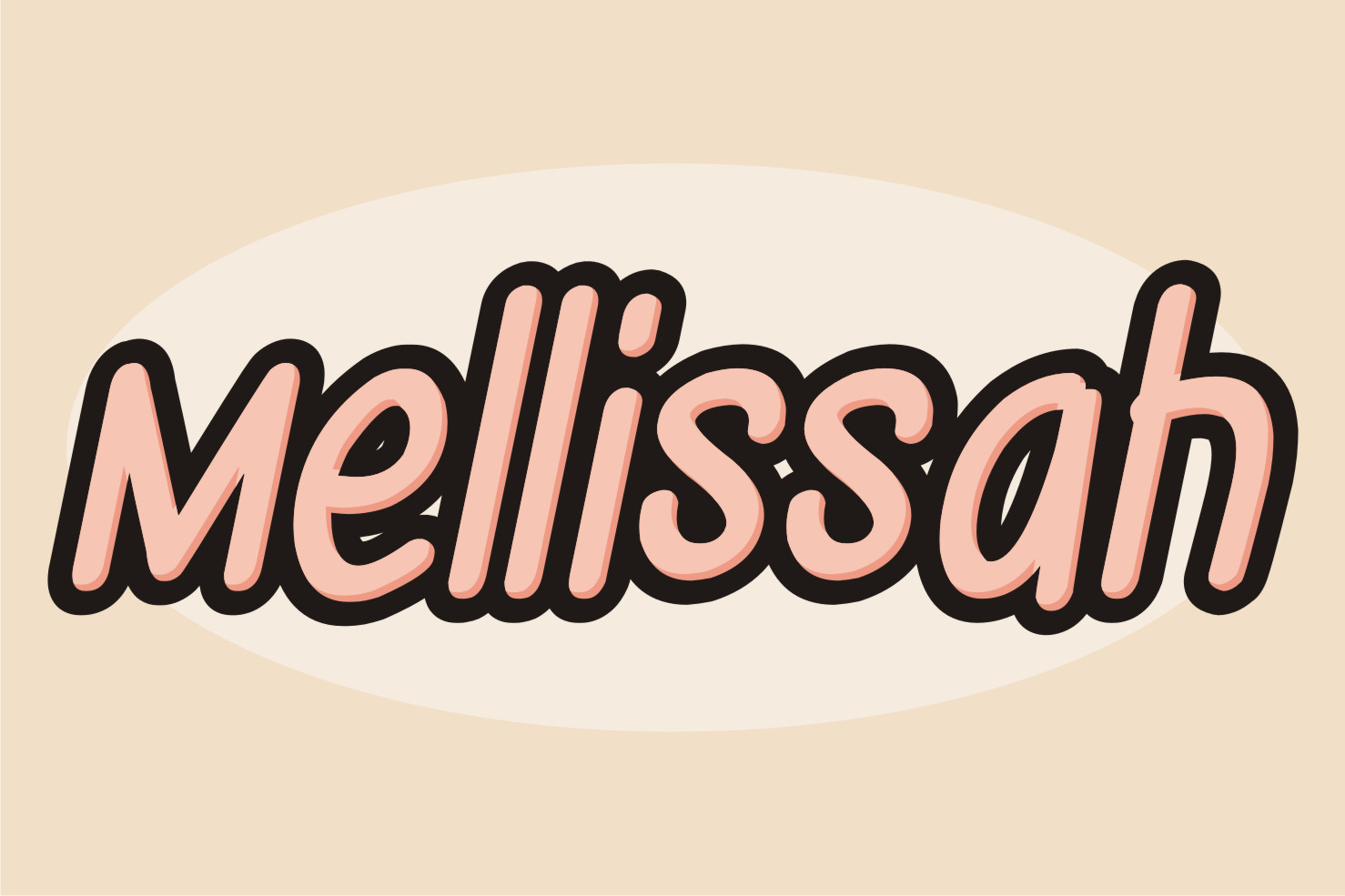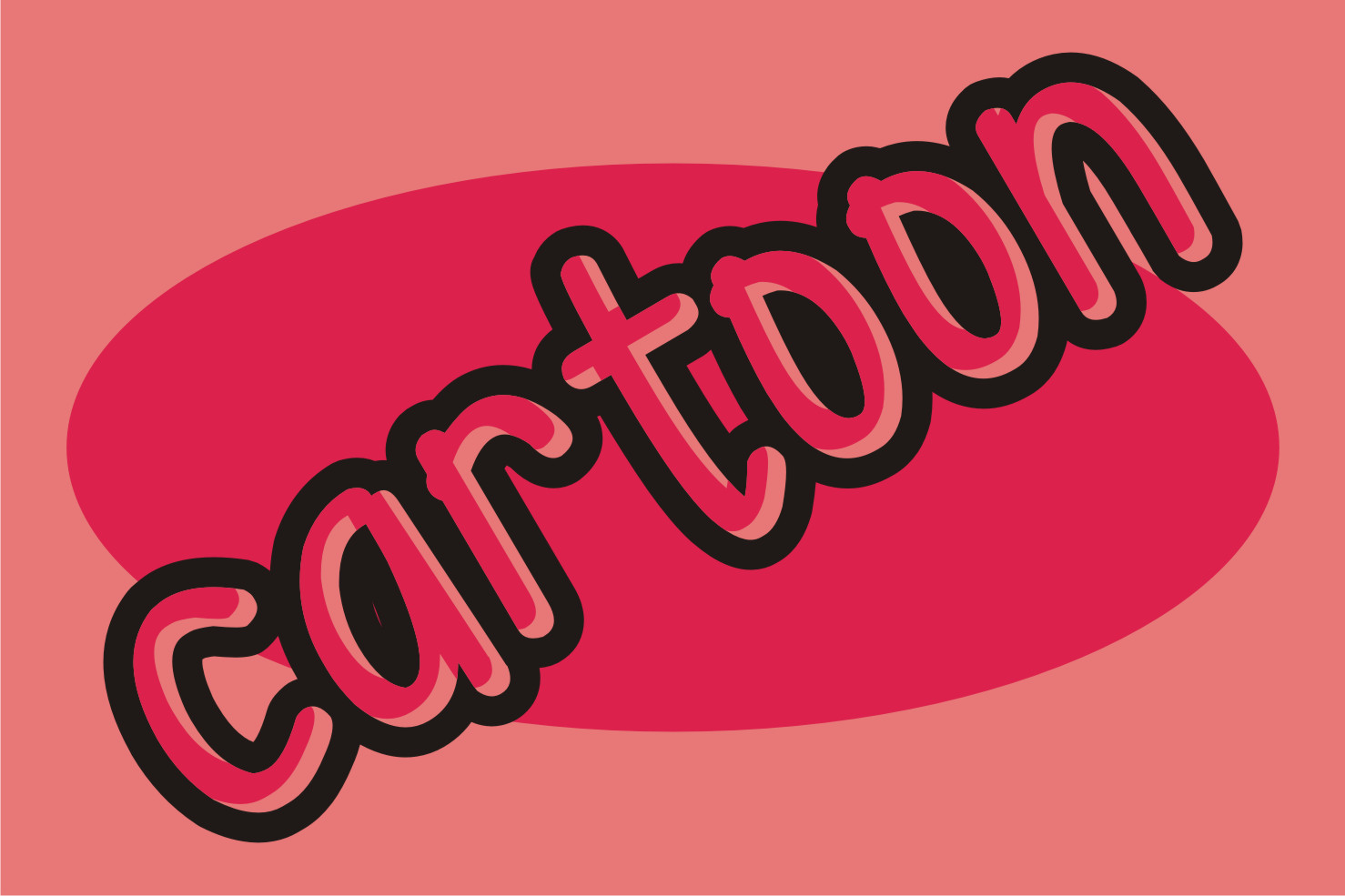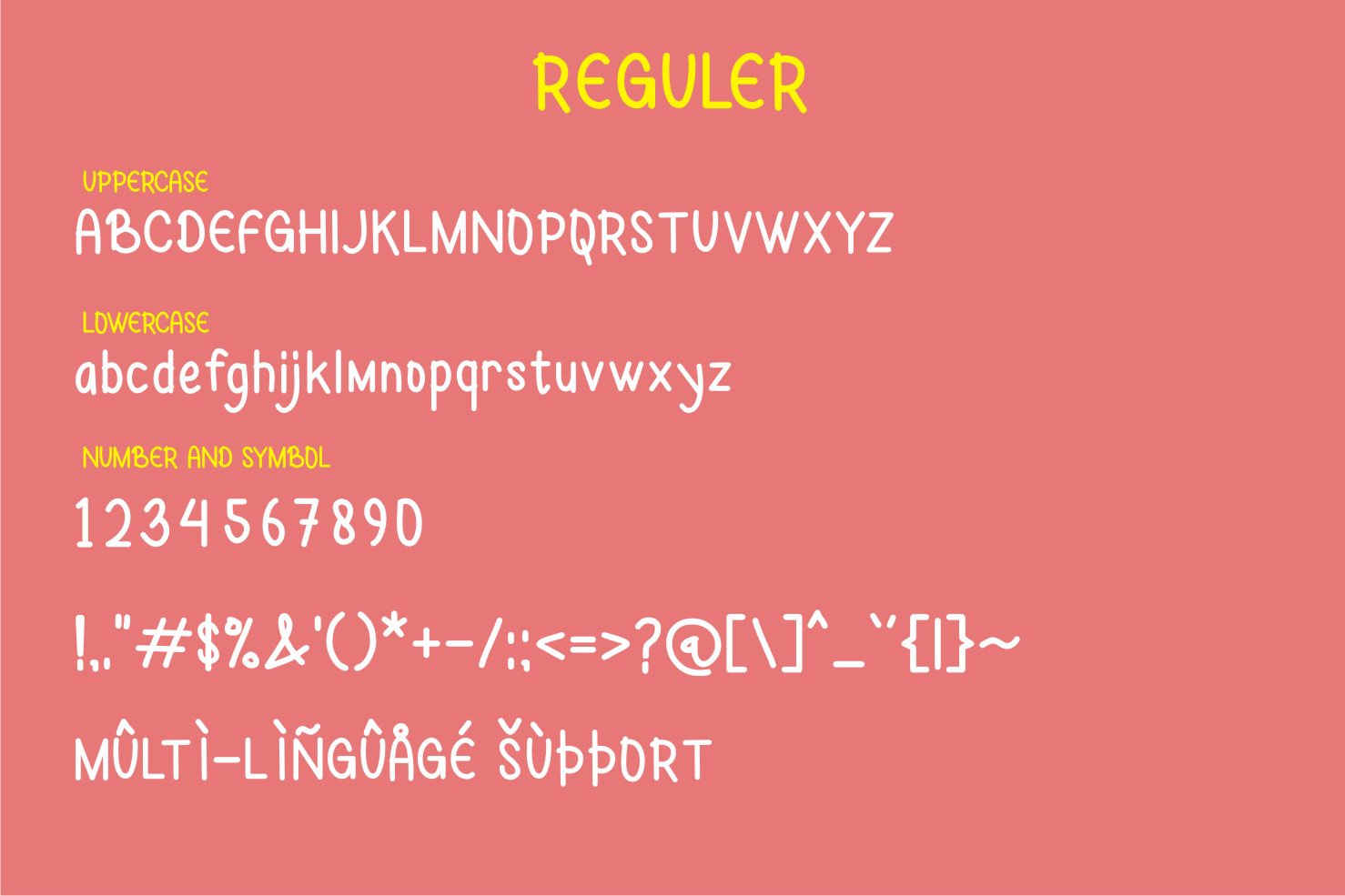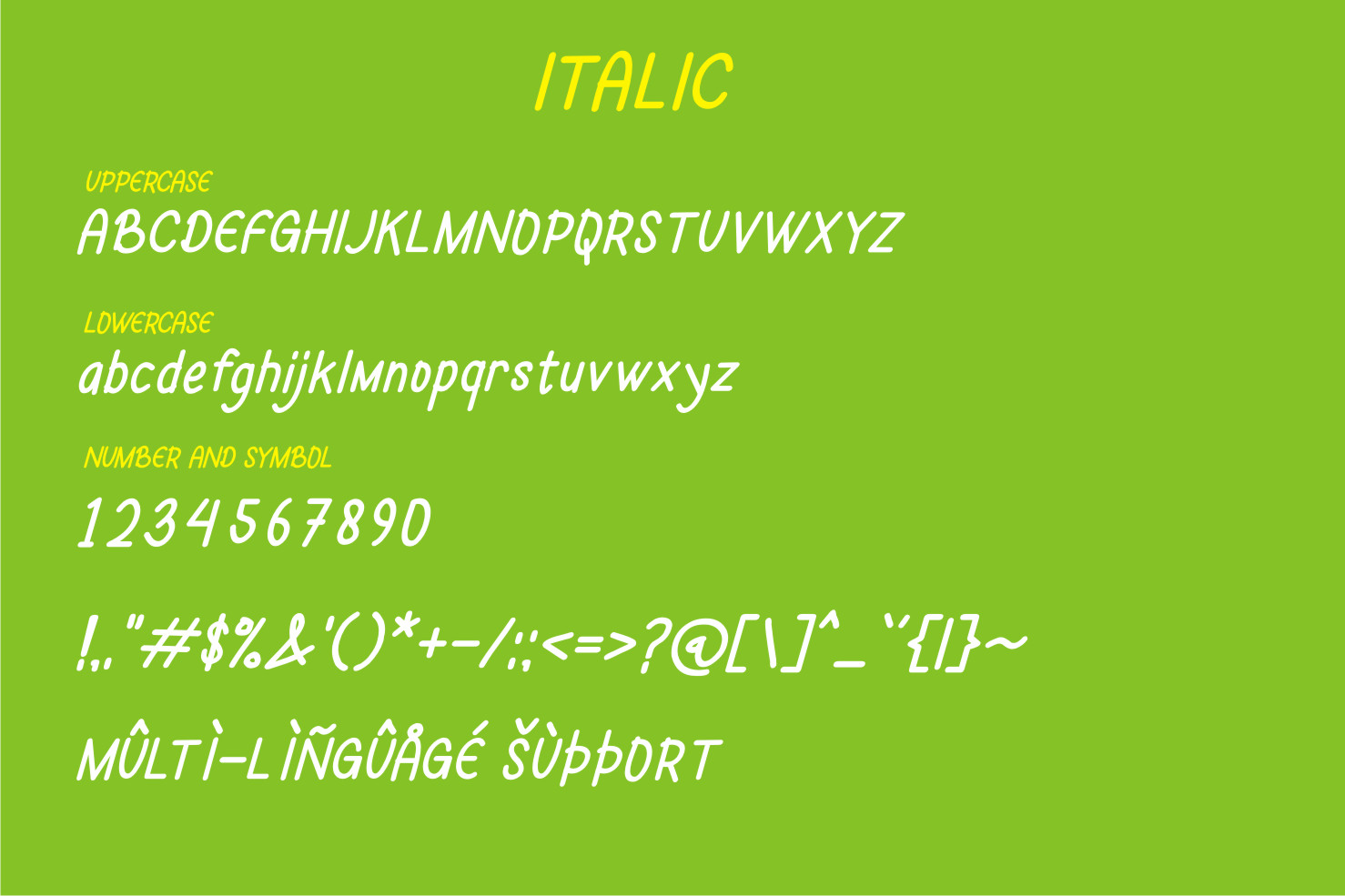
Rostter Display Font
This is a cool and trendy looking display font. No matter the topic, this font will be an incredibly asset to your fonts’ library, as it has the potential to elevate any creation.